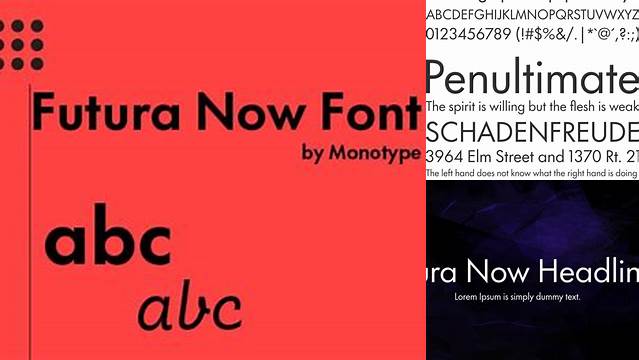
Futura Now Headline Font: Free Download & Design Tips
Hey guys! Today, we're diving headfirst into the awesome world of typography, specifically focusing on the Futura Now Headline Font Family. This is a revamped version of the classic Futura font that's been a design staple for ages. And the best part? We'll be talking about how you can get a free download and how to use this amazing font to create some killer designs. Get ready to unleash your inner designer! This article is your ultimate guide, covering everything from where to find the free download to mastering the nuances of using Futura Now to make your headlines pop. So, buckle up, and let's get started. We'll explore the history, the variations, and, most importantly, how to make the most of this iconic font. It's not just about getting the font; it's about understanding it and leveraging its strengths to elevate your design game. Let's get this show on the road!
1. Introduction to Futura Now: A Modern Twist
Alright, let's kick things off with a proper introduction. Futura Now isn't just your run-of-the-mill font; it's a carefully crafted evolution of the beloved Futura family. Designed by renowned type foundries, this version retains the clean, geometric aesthetics that made Futura famous but with some modern refinements to boost its versatility. Think of it as Futura 2.0! This font family is designed for a wider range of applications, from bold headlines to smaller body text, making it a versatile choice for designers across various fields. The creators have enhanced legibility and optimized its performance across digital and print mediums. Understanding Futura Now is key to maximizing its potential in your projects. The design enhancements ensure that it stands out and remains readable, even in more complex layouts and challenging viewing environments. Getting familiar with its characteristics will greatly improve how you use it.
Futura Now's design updates make it even more adaptable, providing a solid foundation for any design endeavor. The font maintains the core elements of Futura, such as its geometric shapes and clear lines, but improves overall functionality. This is particularly critical for today’s designs. The new features improve readability across various screens and resolutions, a must for digital design. It's a great tool for graphic designers, web designers, and anyone looking to improve their visual communication. Futura Now also has enhanced features that make it stand out from the original and offer designers more creativity. It provides designers with extra options. The family offers different weights and styles, so there is always the perfect fit. It is a must-have font to elevate your design to the next level.
3. Understanding the Futura Now Font Family: Weights and Styles
Let's talk about what makes the Futura Now family so versatile: the different weights and styles! This font family is far from a one-trick pony; it offers a wide range of options to suit various design needs. The Futura Now Headline Font Family typically includes several weights, from light and thin for delicate touches to bold and heavy for making a strong statement. Styles might range from regular and italic to condensed and extended versions. These multiple styles allow designers to create a visual hierarchy within their designs. Understanding the weights is essential for creating a balanced visual look. Using light weights can create a sense of airiness. Bold weights will grab the viewer's attention. Experimenting with different styles and weights will help you bring your design vision to life.
The weights available in a font family play an important role. The Futura Now family often includes weights like Light, Book, Medium, Bold, and Black. Each weight serves a different purpose. Light is often great for smaller text, Bold works well for headlines, while Black creates a strong impression. You should also think about the italic variations. This adds a touch of elegance and can add emphasis to certain words or phrases. Condensed styles are good when space is limited. Extended styles offer a wider look, which is great for display purposes. Futura Now provides a comprehensive selection to improve your design projects. It's important to play around with different combinations to find what works best for your design. Proper use of the weights will improve your visual communication.
4. Futura Now vs. Classic Futura: Key Differences
So, what makes Futura Now different from the original Futura? Good question! While they share the same geometric DNA, Futura Now comes with a bunch of updates and enhancements that make it a superior option, especially for modern design. The main difference lies in readability and versatility. Futura Now is often refined, optimized for digital screens, and designed for broader applications.
One notable difference is the improved rendering on digital devices. Futura Now has been designed to make the font look sharp and legible, no matter the screen size. It's been tweaked for legibility, especially in smaller sizes. This is a must in today's digital world, where people access content on various devices. The updated kerning and spacing also result in a cleaner look and better reading experience. Futura Now also offers a wider range of weights and styles, giving designers more flexibility. The original Futura does offer a variety of styles, the refinements in Futura Now make it a more attractive choice for many modern design needs. Also, the original Futura may come with restrictions. You can be sure that by using Futura Now you will be using the best modern font.
5. Designing Effective Headlines with Futura Now
Alright, let's get down to business: How to use Futura Now to create killer headlines. The key here is balance. The font's clean lines and geometric shapes mean it's very versatile, but it's important to use it with intention. The headline should be the focus of your design. Using Futura Now will help your headlines jump out, but you must follow some principles. Choose the right weight and style. Bold and heavy weights are great for grabbing attention, while lighter weights can create a sense of sophistication. Make sure your headlines are readable. Consider the size and spacing. Large text with generous spacing is key for legibility. Keep your headlines short and concise. Think about the message.
The key is to establish a clear visual hierarchy. Experiment with different weights. You can use light weights for headers. Bold weights can be used for display text. You must make the text legible and engaging. It will make your project more appealing. To create the best design, combine Futura Now with other fonts. You can establish a brand voice. The use of space is also critical. Give the design the chance to